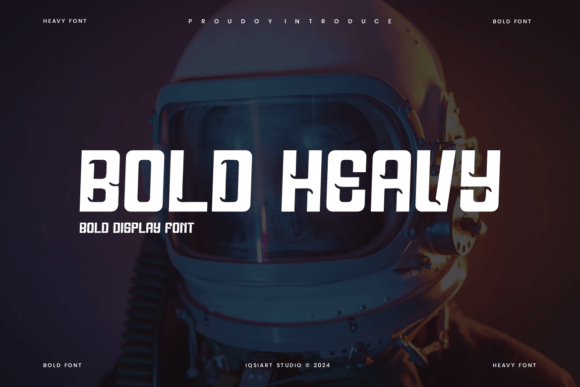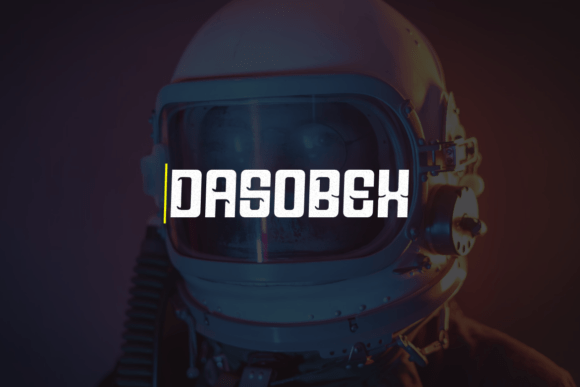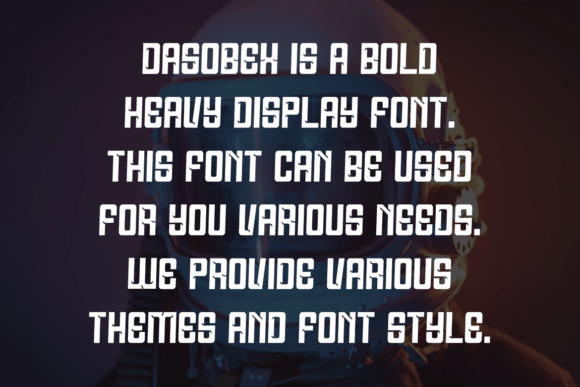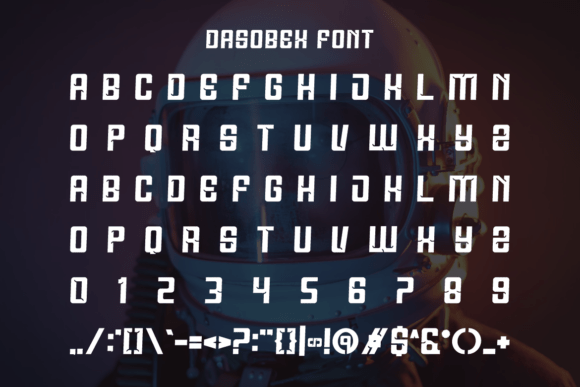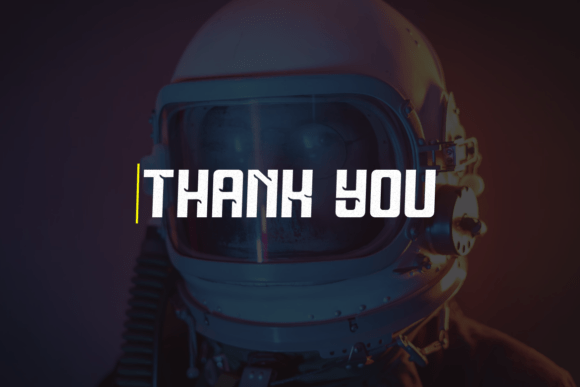
Introducing Dasobex Font: The Ultimate Modern Display Font for Futuristic Designs
In the world of typography, fonts play a crucial role in conveying the tone and aesthetic of a brand or design. For designers and crafters looking to create futuristic and bold designs, Dasobex Font is the perfect choice. This modern display font is designed to make a statement with its heavy strokes, unique cutout details, and sleek appearance.
What Makes Dasobex Font Stand Out?
Dasobex Font is a one-of-a-kind display font that boasts bold, heavy strokes that exude confidence and strength. Its unique cutout details add a touch of edginess, making it perfect for sci-fi themes, tech branding, esports logos, space-related projects, and futuristic headlines. Whether you’re designing a logo, poster, or website, Dasobex Font is sure to grab attention and leave a lasting impression.
Ideal Use Cases for Dasobex Font
Dasobex Font is versatile and can be used in various design projects, including:
- Sci-fi themes: Create otherworldly designs that transport your audience to a futuristic world.
- Tech branding: Establish a strong and modern brand identity with Dasobex Font.
- Esports logos: Design bold and eye-catching logos that represent speed, agility, and competition.
- Space-related projects: Convey a sense of adventure and exploration with Dasobex Font.
- Futuristic headlines: Add a touch of futurism to your headlines and make them stand out.
Key Features of Dasobex Font
Dasobex Font comes with several key features that make it a powerful design tool:
- Bold and heavy strokes: Create a strong visual impact with Dasobex Font’s bold strokes.
- Unique cutout details: Add a touch of edginess to your designs with Dasobex Font’s cutout details.
- Sleek and strong appearance: Dasobex Font’s sleek appearance makes it perfect for modern designs.
- High-impact font: Use Dasobex Font to create designs that grab attention and leave a lasting impression.
Tips for Using Dasobex Font Effectively
To get the most out of Dasobex Font, follow these tips:
- Use it sparingly: Dasobex Font is a bold font, so use it sparingly to avoid overwhelming your design.
- Pair it with complementary fonts: Pair Dasobex Font with complementary fonts to create visual interest.
- Experiment with colors: Try out different colors to find the perfect match for your design.
- Pay attention to spacing: Make sure to leave enough spacing to create a clean and visually appealing design.
Dasobex Font is a powerful and modern display font that’s perfect for designers and crafters looking to create futuristic and bold designs. With its bold strokes, unique cutout details, and sleek appearance, Dasobex Font is ideal for sci-fi themes, tech branding, esports logos, space-related projects, and futuristic headlines. By following the tips outlined above, you can use Dasobex Font to create stunning designs that grab attention and leave a lasting impression.